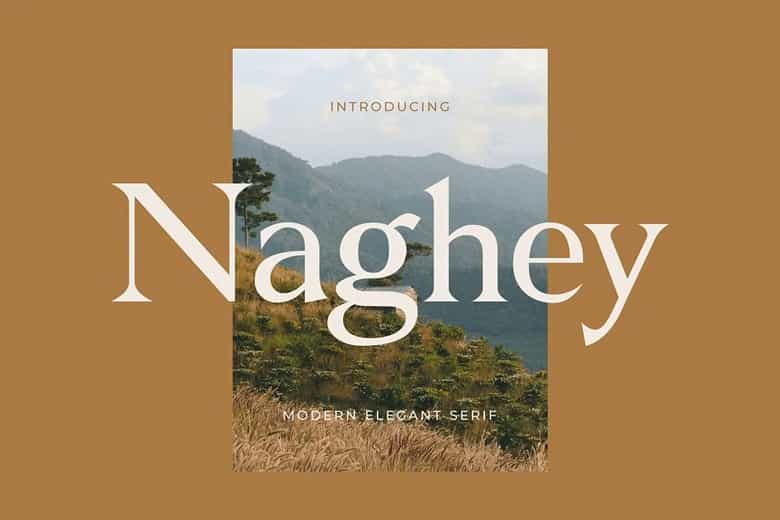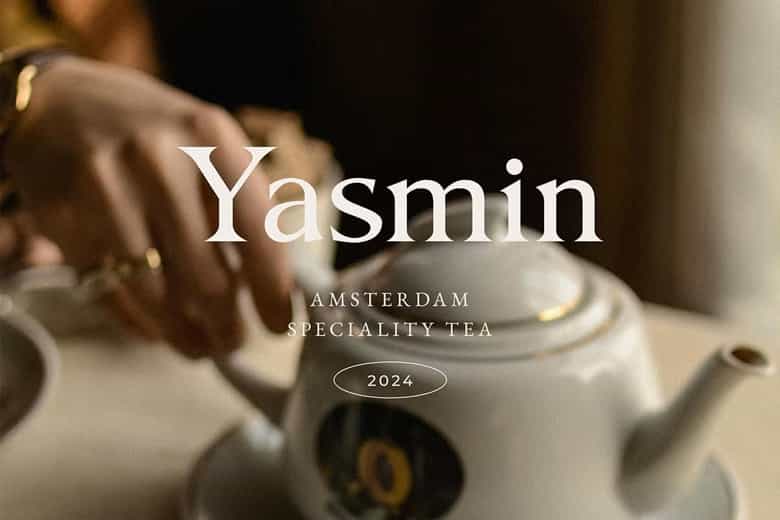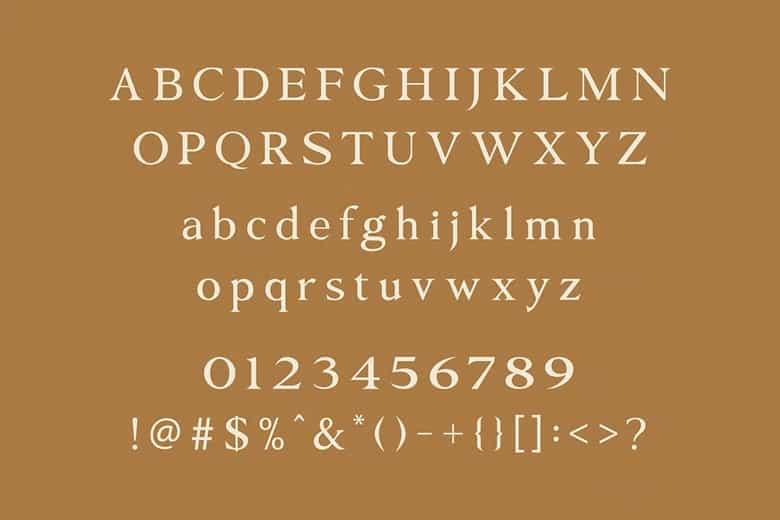
Naghey is a new serif typeface combined with a classy and modern style. Naghey is a simple font, best used as a display for headings, logos, branding, magazines, product packaging and invitations.